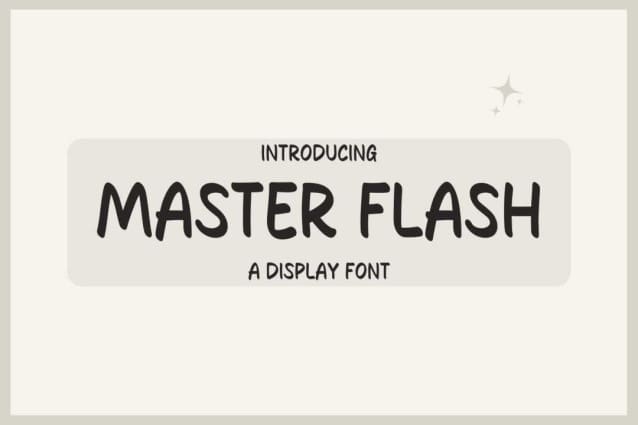
Master Flash Font
Master Flash Font is a chunky, comic, and cartoon display font. With its neat and joyful personality, this font will enhance any project you wish to create!